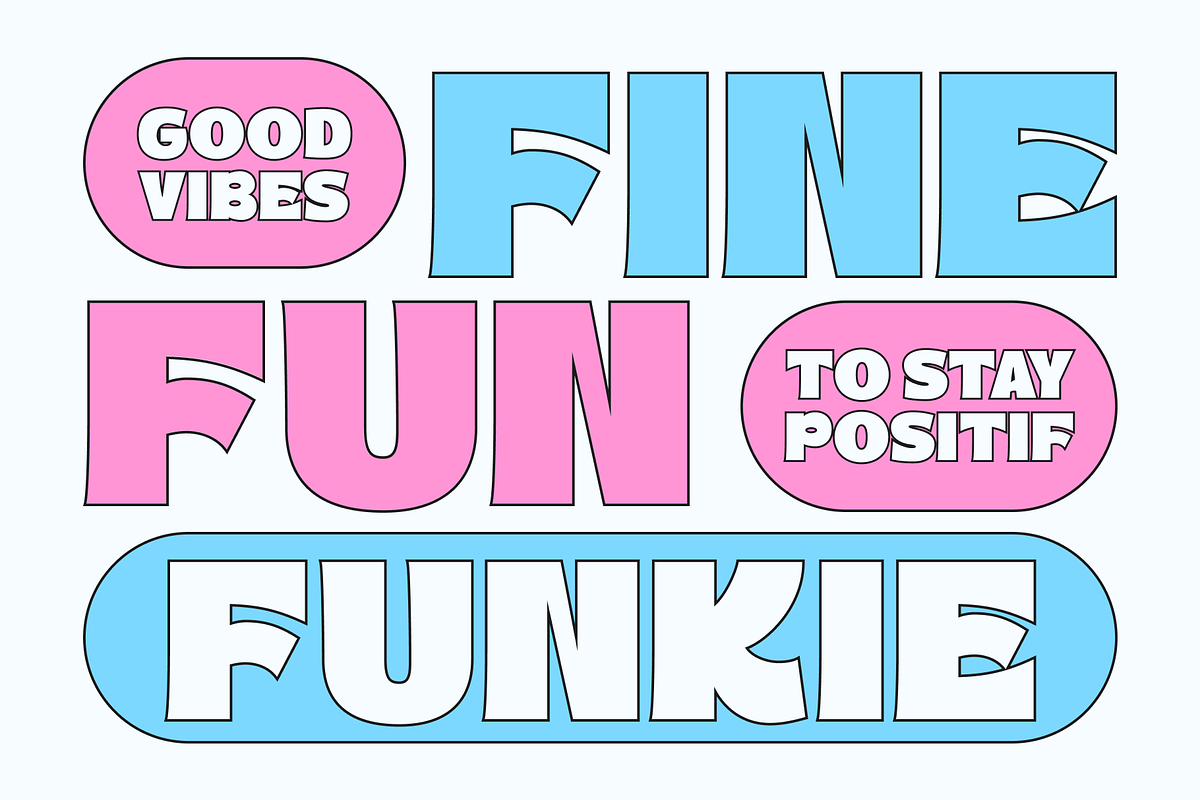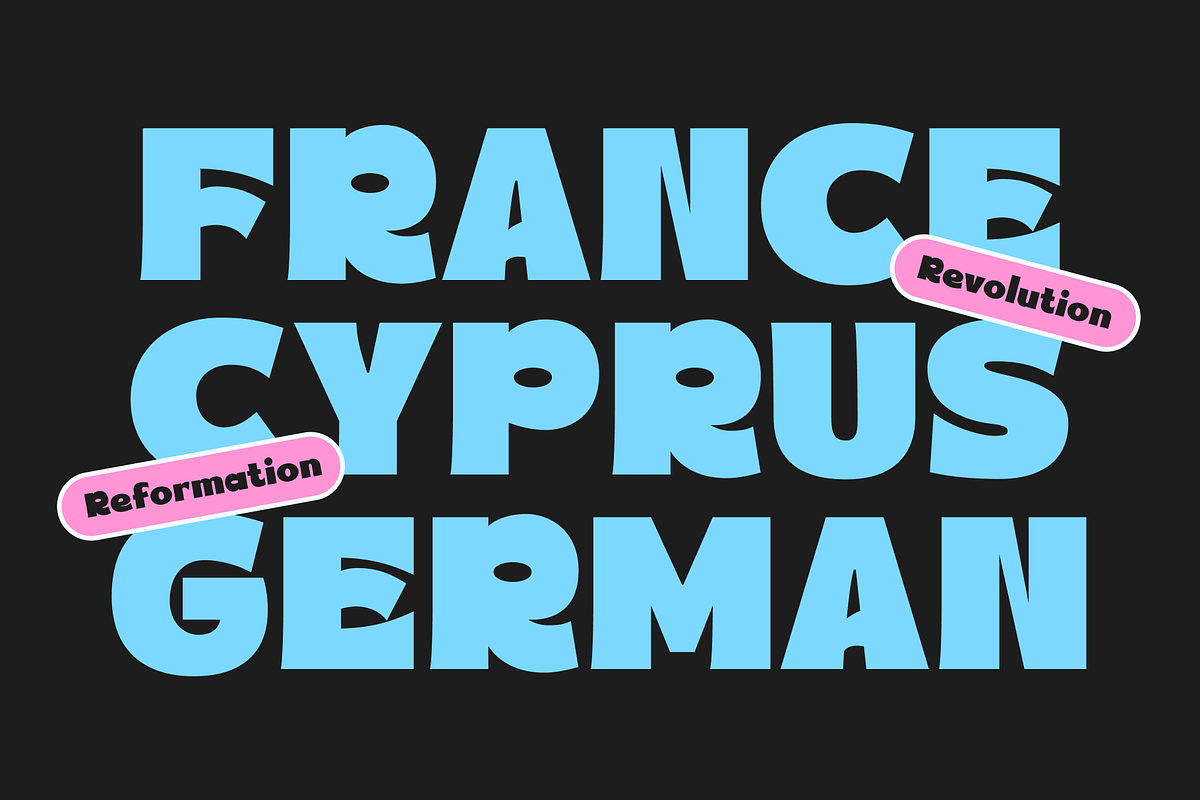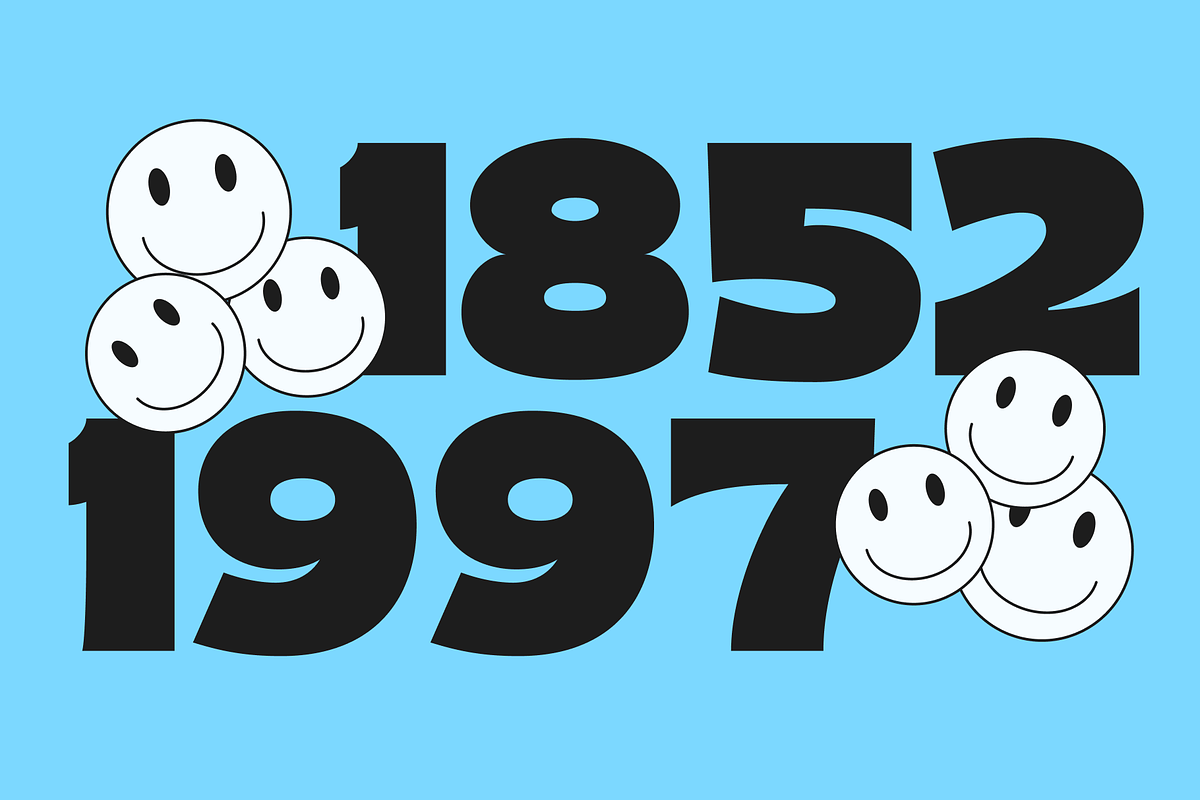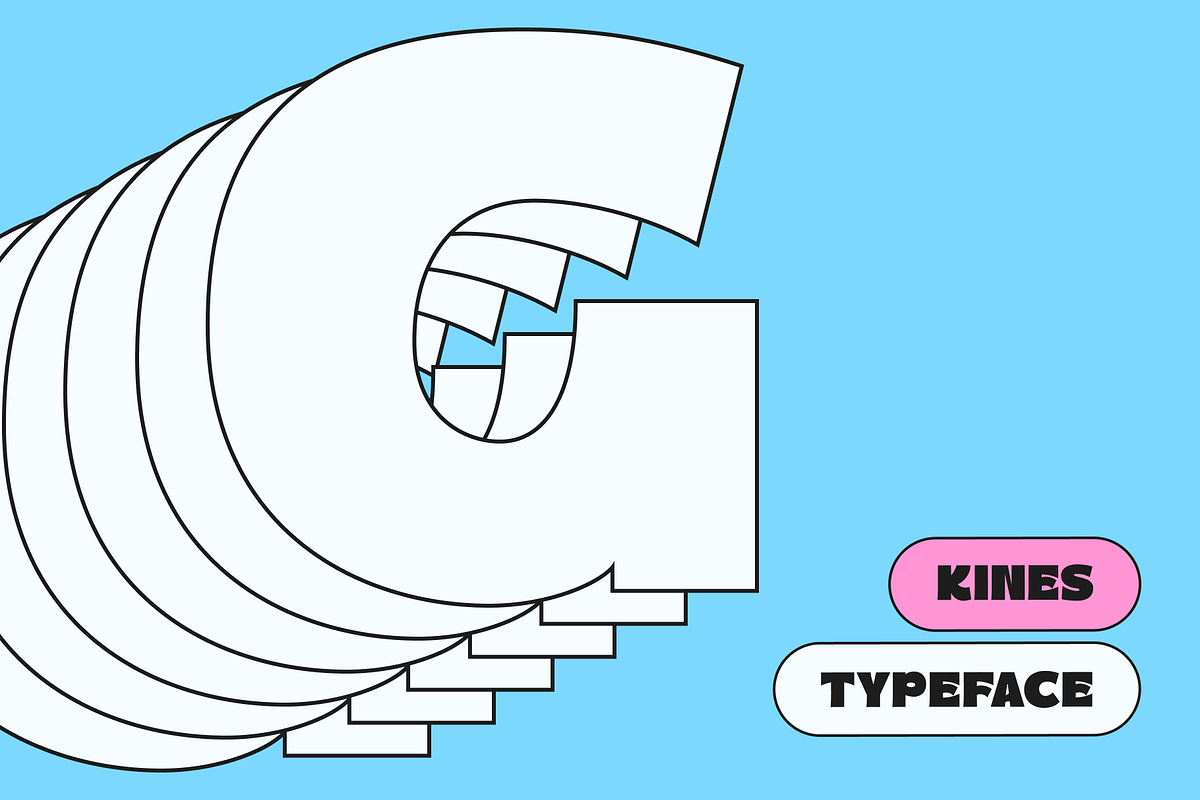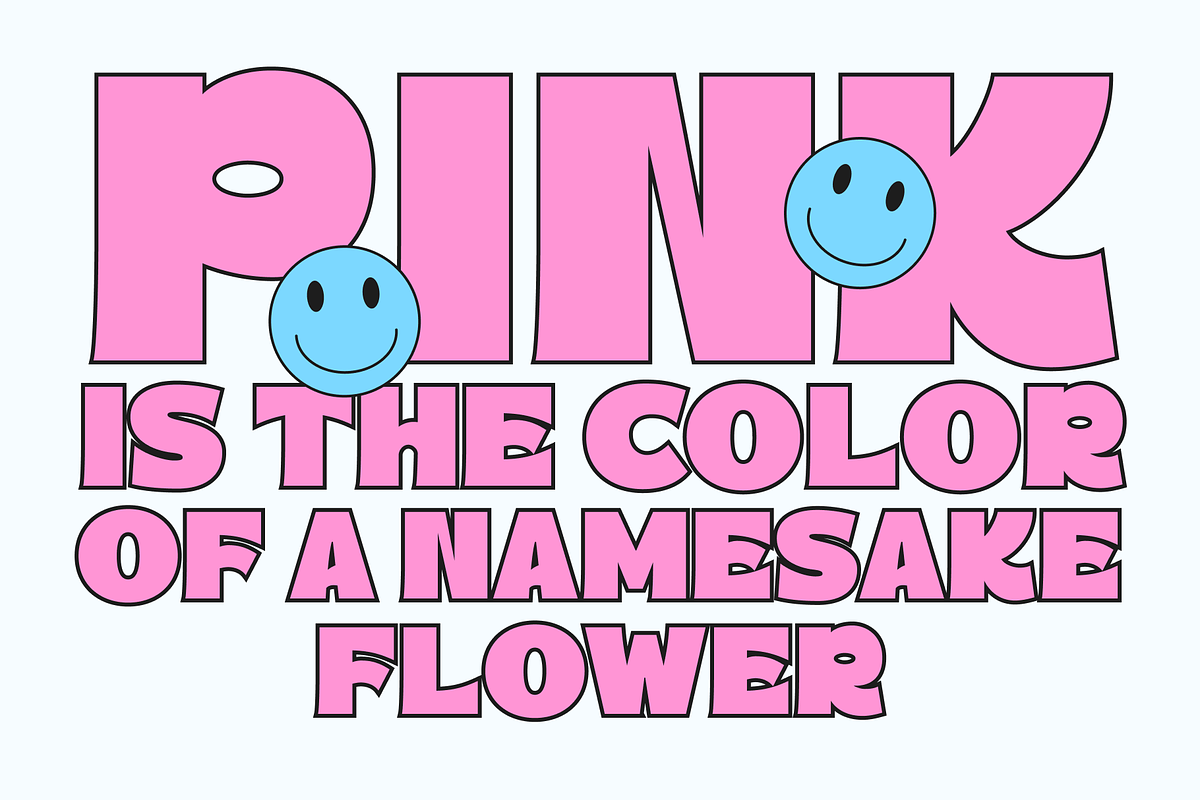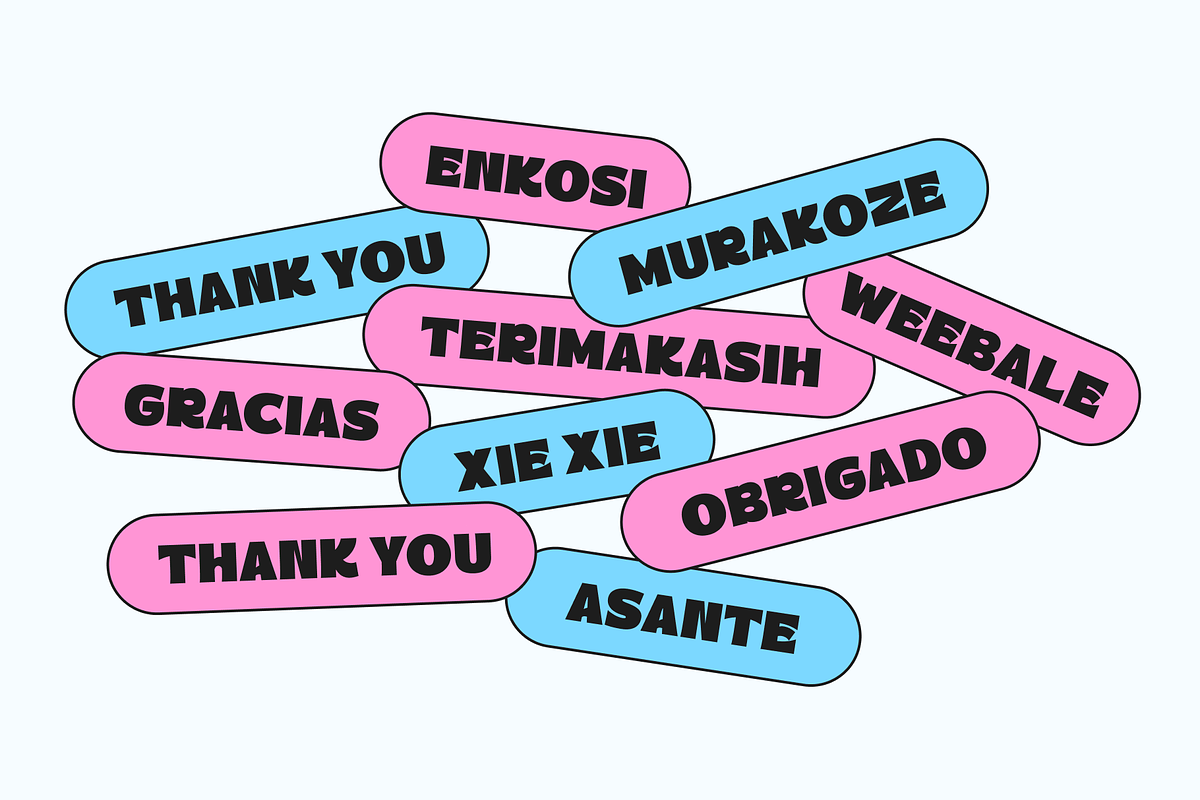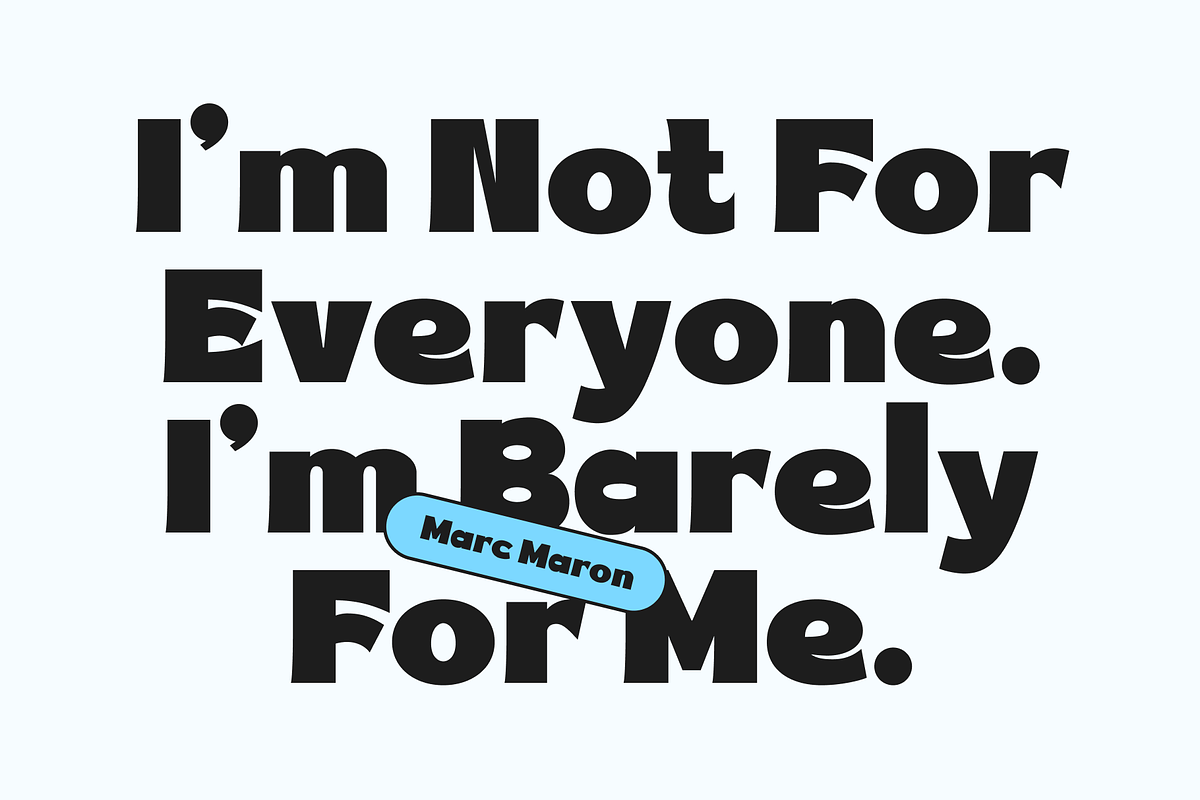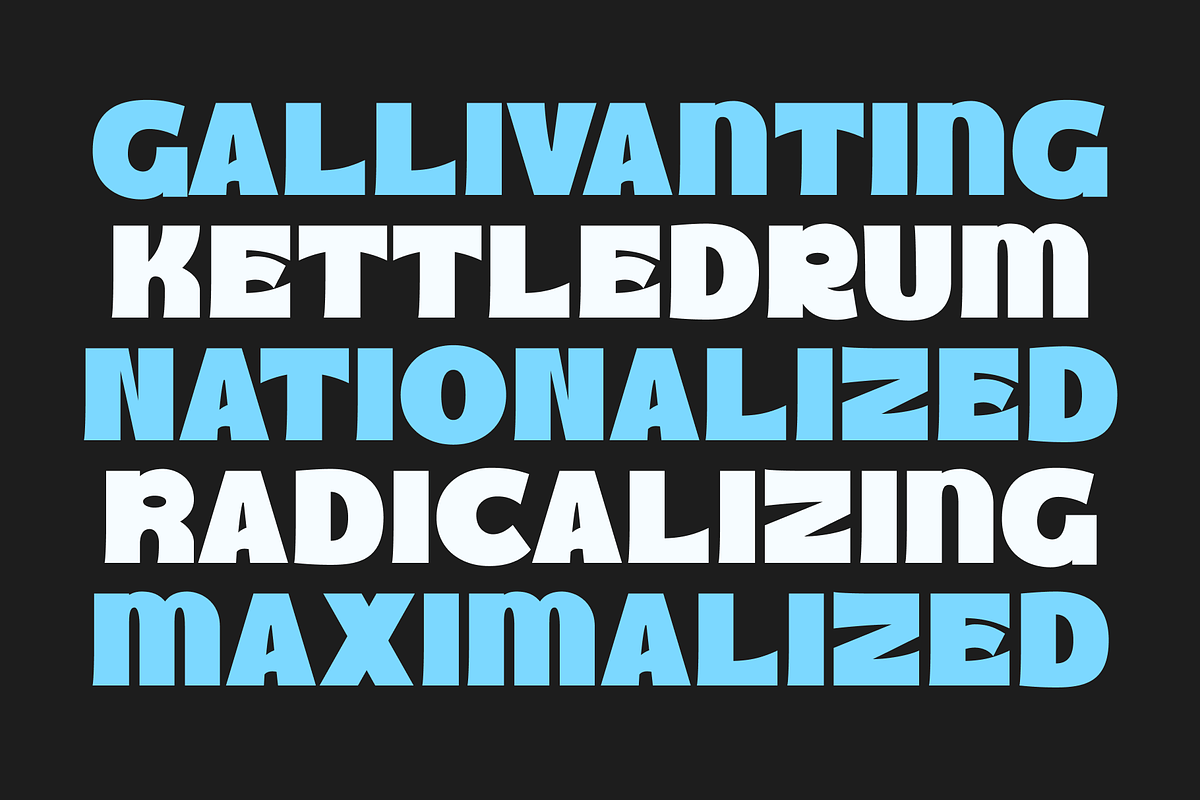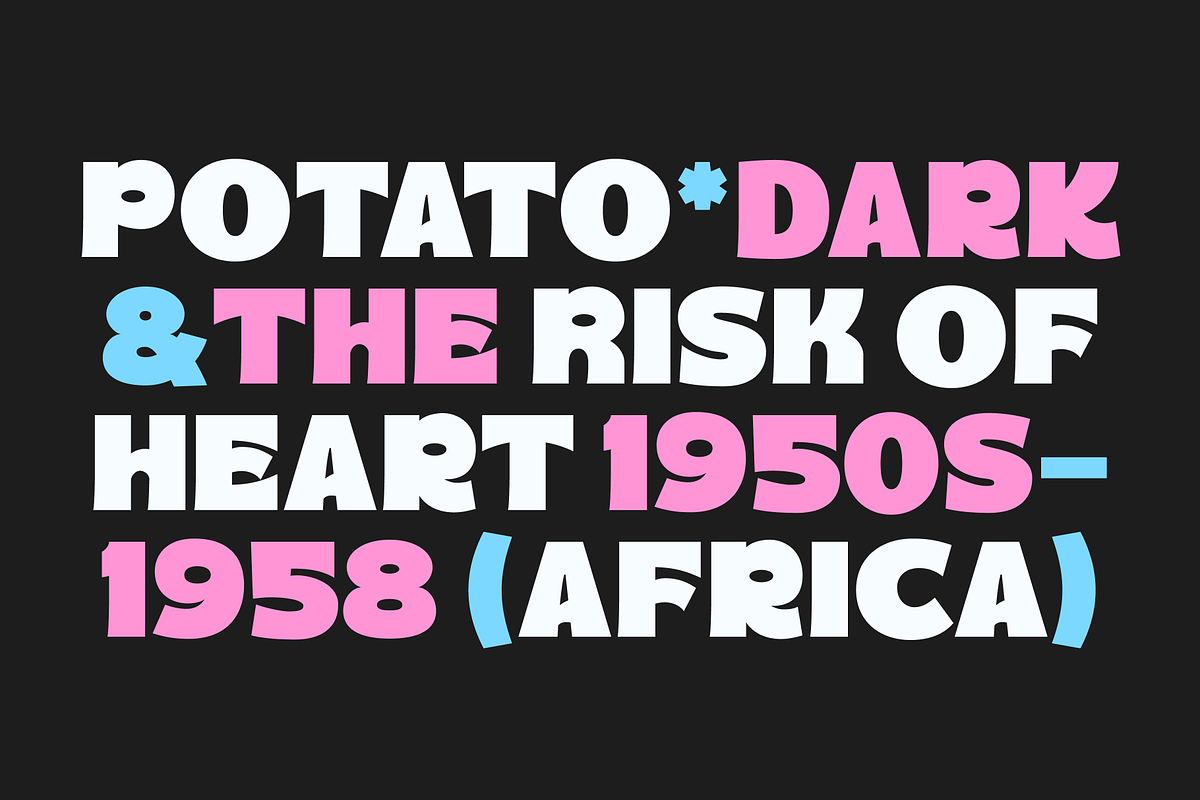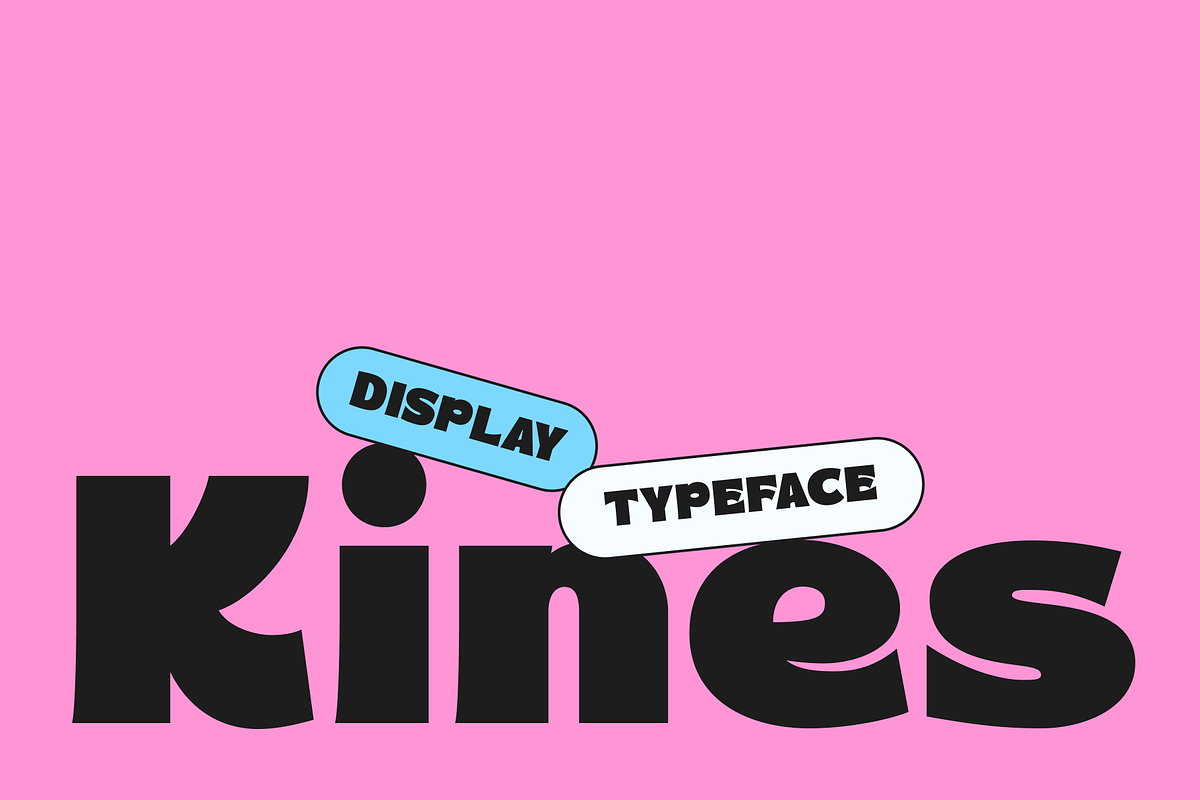
Kines Sans Display
Kines is the newest typeface sans display. Character Inspired By Retro and Bold Typeface. The entire typography has been designed to work on large sizes. This font is good to use on posters, zines, stickers, and t-shirts.